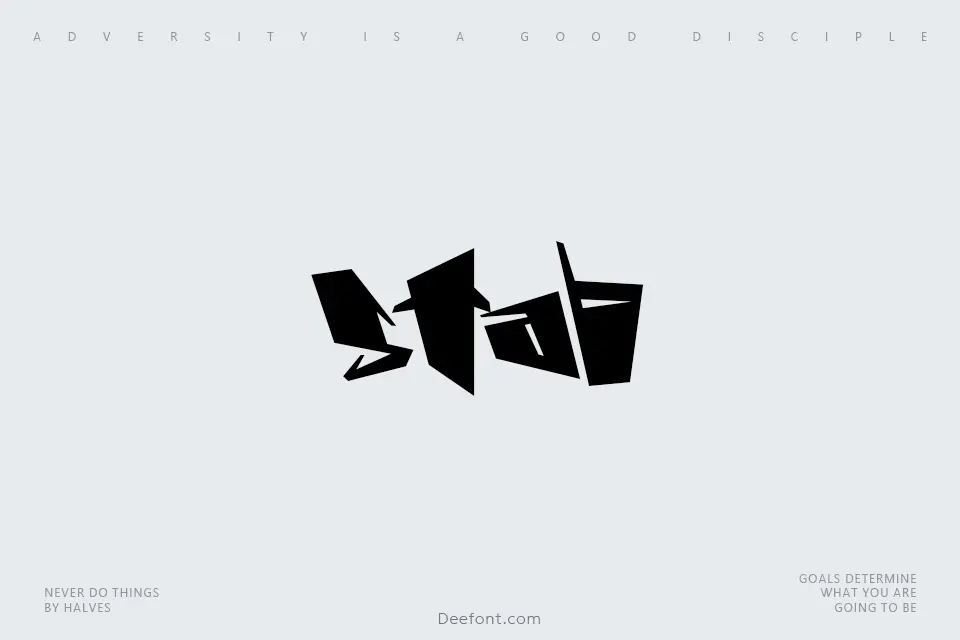
Stab Font
Stab is a bold, edgy display font inspired by graffiti letterforms with sharply pointed, angular alphabet characters. The font features uneven widths and exaggerated strokes, with letters that interrupt each other creating endless design possibilities. Perfect for titles, posters, and urban designs requiring a powerful, rebellious aesthetic that conveys raw energy and unconventional creativity.